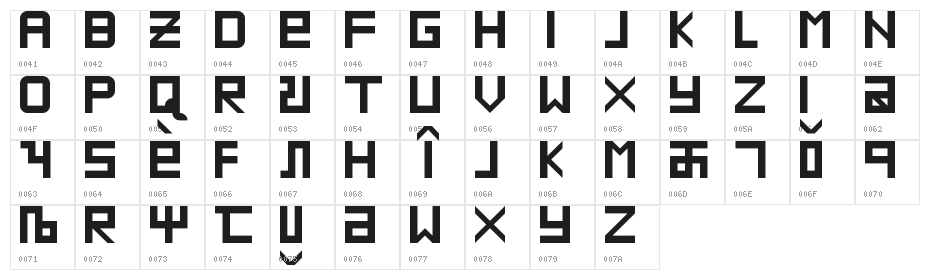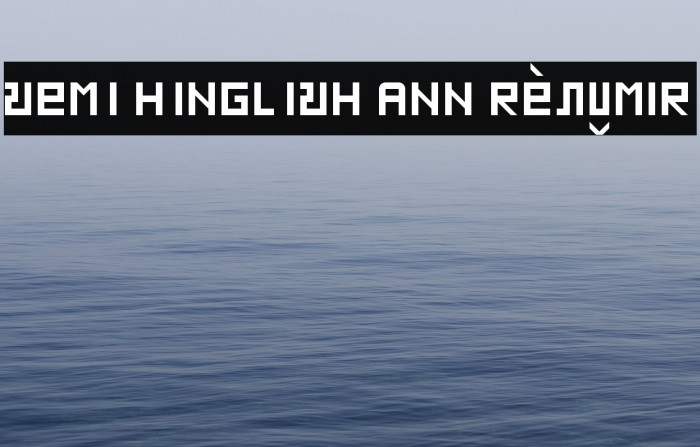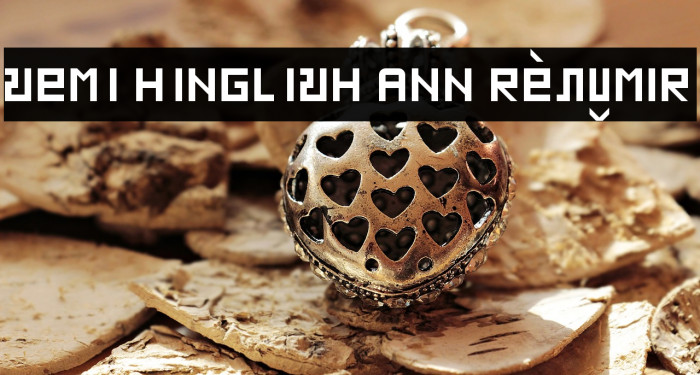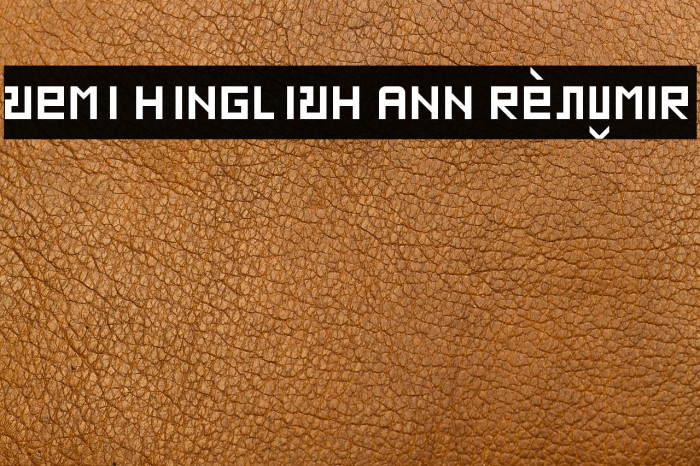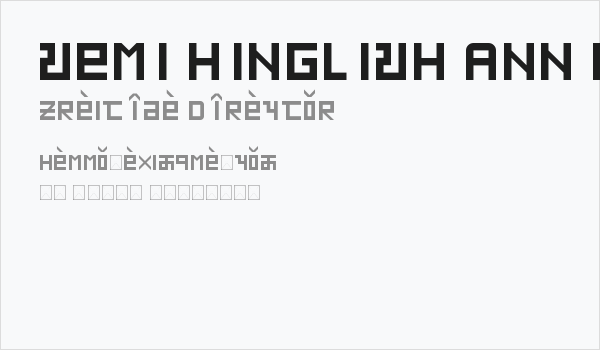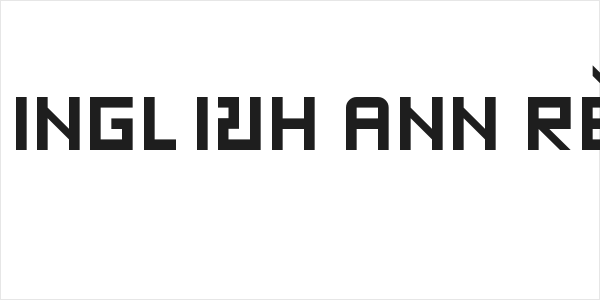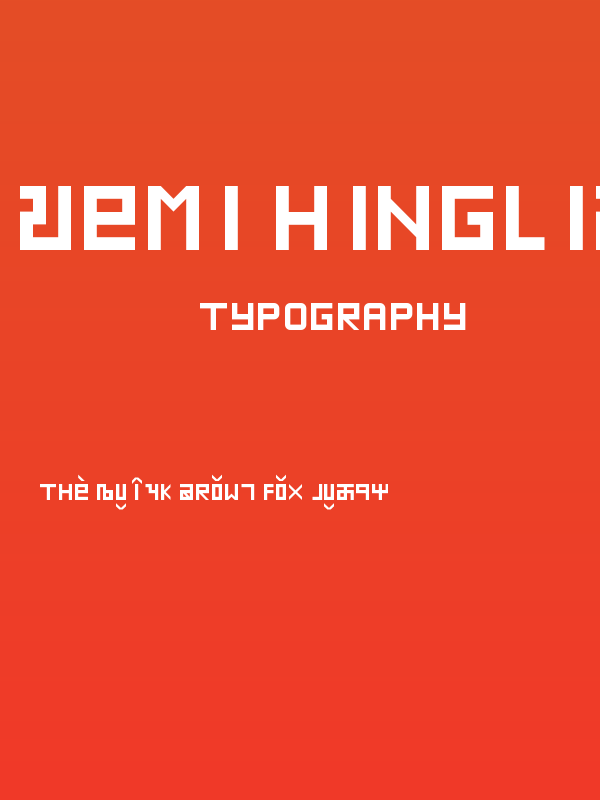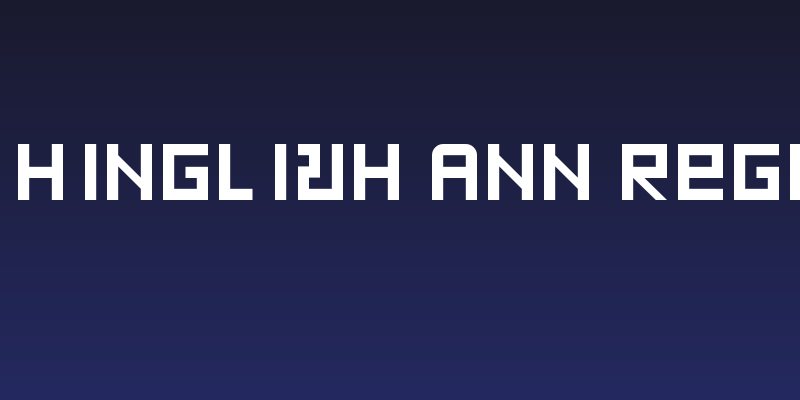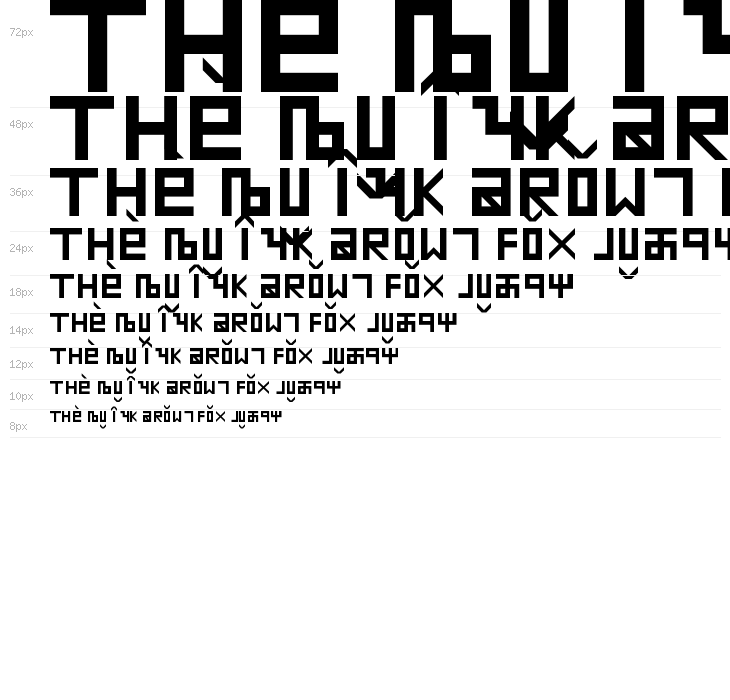
SEMI HINGLISH ANN Regular Font
SEMI HINGLISH ANN Regular Description
This font features a bold and geometric design, characterized by its angular and blocky letterforms. The uppercase and lowercase letters share a consistent style, with sharp edges and a modern aesthetic. The numerals and special characters are designed to match the overall geometric theme, providing a cohesive look across all characters. The font's unique style makes it stand out, with a futuristic and tech-inspired appearance. Its strong presence and distinctive shapes make it suitable for projects that require a bold statement.
| Proposed Projects | Ideal for tech branding, futuristic designs, video game interfaces, and bold headlines. |